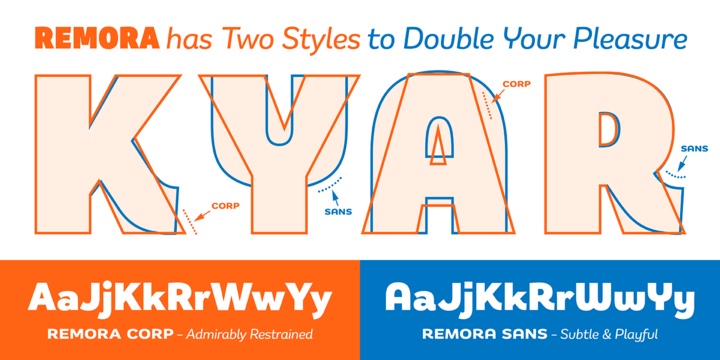
Remora Sans Font
Remora Sans Font is perfect for strategic partnership companies, symbiotic business relationships, collaborative consulting firms, attachment-based technology platforms, relationship-building organizations, and adaptive service providers. Its adaptive character makes it ideal for business development agencies, strategic alliance consultants, collaborative workspace providers, networking organizations, interdependent technology solutions, and any project requiring strategic attachment with adaptive flexibility and symbiotic success appeal.
This font is exciting because it embodies the intelligent strategy of beneficial attachment and adaptive collaboration while delivering exceptional functionality for organizations that thrive through strategic relationships and mutually beneficial partnerships. The cleverly crafted letterforms reflect the wisdom of knowing when to attach, when to adapt, and how to create value through strategic positioning and collaborative advantage.
The Remora Sans Font family typically includes Light, Regular, Medium, and Bold weights with adaptive alternates, partnership-inspired ligatures, and strategic elements that enhance its collaborative personality. This comprehensive collection enables partnership professionals to create intelligent brand systems that maintain strategic credibility while offering flexibility for various collaborative applications requiring both adaptive thinking and contemporary business positioning.
Whether you're developing identity systems for strategic consulting firms, creating materials for partnership development programs, or designing promotional content for collaborative business services, Remora Sans Font Free Download delivers the strategic intelligence and adaptive appeal that connects with business audiences seeking smart partnerships and mutually beneficial relationships. Its clever presence ensures memorable brand recognition across digital platforms and print materials, making it perfect for websites, mobile applications, and partnership campaigns that celebrate strategic thinking, adaptive collaboration, and the transformative power of intelligent business relationships with contemporary strategic standards and authentic partnership wisdom.